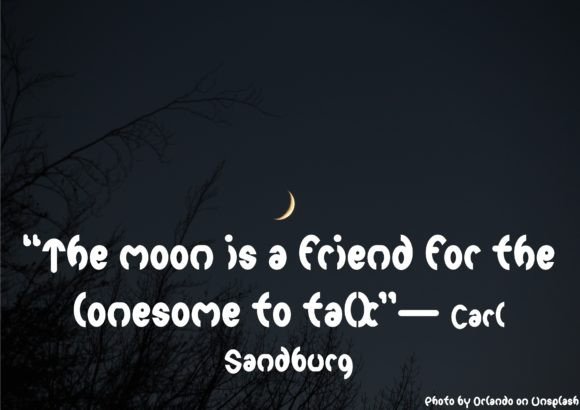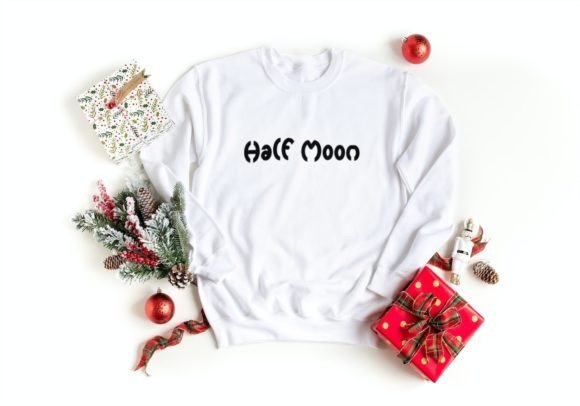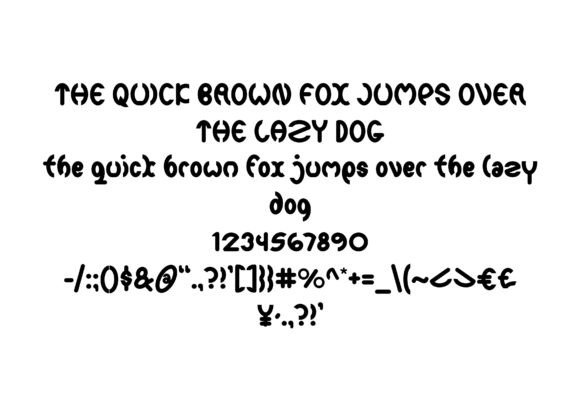
Discover the Elegance of Halfmoon Liner Font: Elevate Your Designs with Versatility
In the realm of typography, the right font can make or break a design. For those seeking a blend of elegance and versatility, the Halfmoon Liner Font stands out as a remarkable choice. This comprehensive guide will delve into the features, benefits, and potential applications of the Halfmoon Liner Font, exploring how it can enhance your creative projects.
An Overview of Halfmoon Liner Font
Halfmoon Liner is a thoughtfully designed typeface that boasts an impressive collection of over 218 letters, encompassing Latin characters. This extensive character set ensures that designers have a wide range of options at their disposal, making it suitable for various design needs. Whether you’re working on a print project or crafting digital content, Halfmoon Liner offers the flexibility and aesthetic appeal required to make your work stand out.
Design Philosophy: Form and Function
The Halfmoon Liner Font has been crafted with a dual focus on form and function. Its design philosophy emphasizes not only the visual appeal of the characters but also their usability across different mediums. This balance is crucial for designers who need a font that looks good and works well in practical applications. The elegant lines and carefully considered letterforms of Halfmoon Liner contribute to its sophisticated appearance, making it an excellent choice for projects where presentation is key.
Key Features of Halfmoon Liner Font
• Extensive Character Set: With over 218 letters, including Latin characters, Halfmoon Liner offers a comprehensive typographic solution.
• Versatility: Its design makes it suitable for a wide range of applications, from print materials like brochures and posters to digital content such as websites and social media graphics.
• Elegant Design: The font’s sleek lines and elegant letterforms provide a sophisticated look that can elevate the aesthetic of any project.
• User-Friendly: Designed with usability in mind, Halfmoon Liner ensures that your message is conveyed clearly and effectively.
Applications of Halfmoon Liner Font
The versatility of Halfmoon Liner Font makes it an invaluable asset for designers across various fields. Here are some of the key areas where this font can make a significant impact:
• Print Design: Ideal for business cards, letterheads, magazines, and any other print materials where a professional look is desired.
• Digital Media: Perfect for website headers, blog posts, social media content, and digital advertising, where readability and style are paramount.
• Branding: Can be used to create a consistent and elegant brand image across all marketing materials.
• Packaging: Suitable for product packaging where distinctive typography can help a product stand out.
Tips for Maximizing the Potential of Halfmoon Liner Font
To get the most out of Halfmoon Liner Font, consider the following tips:
• Experiment with Sizes: Halfmoon Liner looks great in various sizes, from large headings to smaller body text.
• Combine with Other Fonts: Don’t be afraid to pair Halfmoon Liner with complementary fonts to create visual interest.
• Play with Colors: The elegant design of Halfmoon Liner lends itself well to a range of colors and gradients.
• Consider Line Spacing: Ensure that your line spacing is carefully chosen to enhance readability.
Font Name Halfmoon Liner Font
Author Manbehindart
Halfmoon Liner Font is a versatile and elegant typeface that can significantly enhance your design work. With its extensive character set, focus on both form and function, and wide range of applications, it’s an excellent addition to any designer’s toolkit. Whether you’re working on a print project, crafting digital content, or developing a brand identity, Halfmoon Liner offers the quality and flexibility needed to produce outstanding results. Embrace the elegance and versatility of Halfmoon Liner Font, and watch your designs reach new heights of sophistication and appeal.